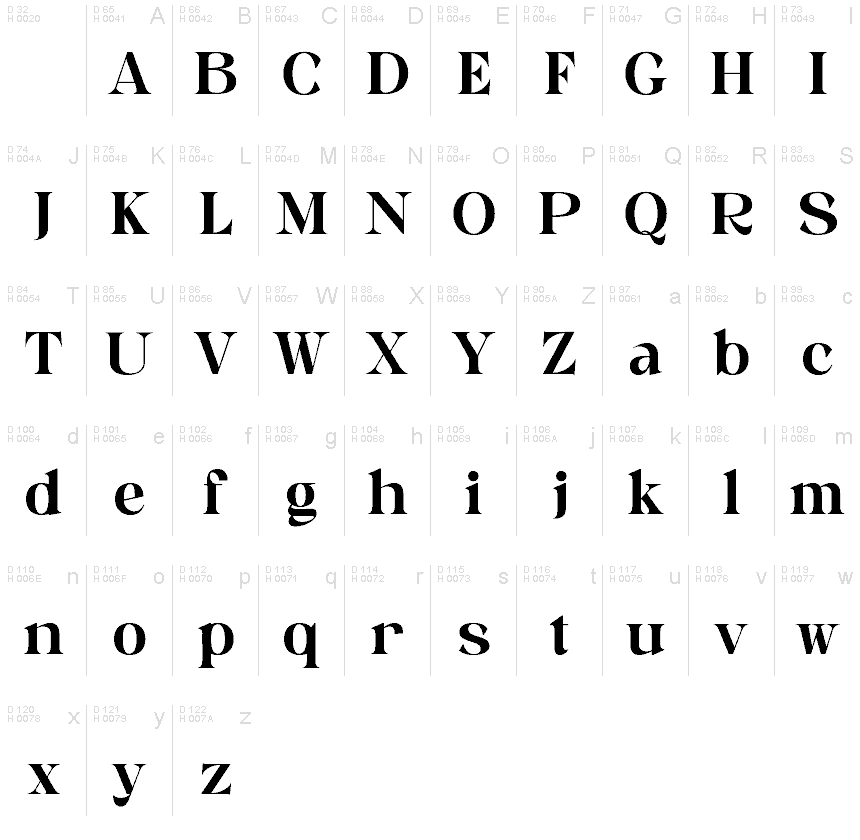
BalenySerifFree-Regular
Baleny Serif font is the new font you’ve been dreaming of incorporating into your designs. This free serif font is a unique combination of elegance and modernity, sophistication and casualness, as well as impactful grandeur. The timeless letters are beautifully made with truly versatile usage in mind which makes Baleny a spectacular typeface all around.
Baleny Serif Free